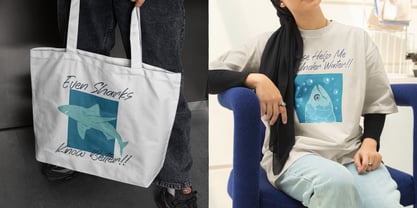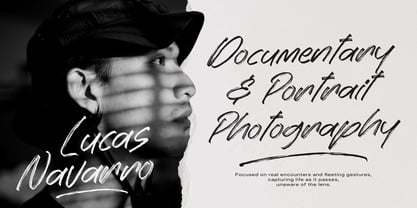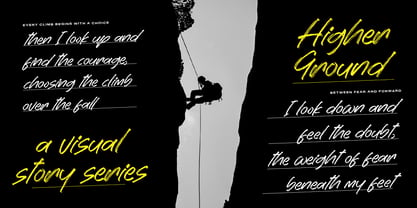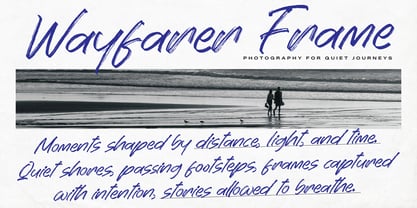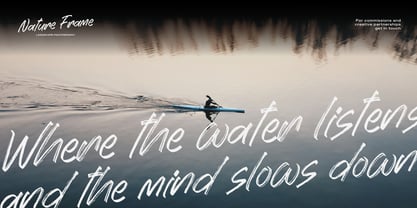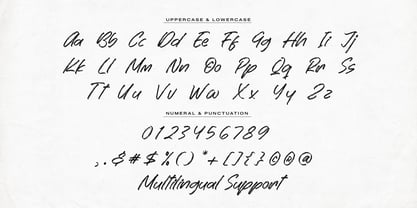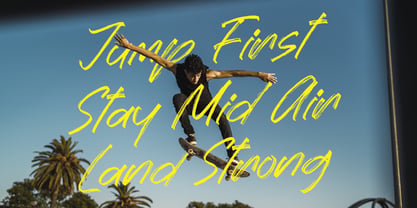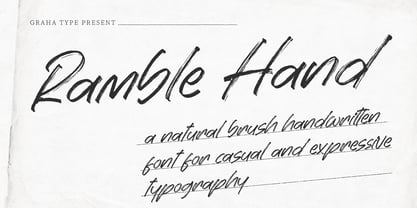
Ramble Hand
A família de fontes Ramble Hand foi desenhada por Toni Nugraha e publicada pela Graha Type. Ramble Hand contém 1 estilos. Saiba mais sobre esta família
Ramble Hand is a natural brush handwritten font with rough strokes and expressive character, created to deliver a casual, bold, and authentic handwritten look. Designed for projects that need strong personality and raw visual impact. This font is ideal for posters, quotes, branding, logos, apparel, packaging, social media graphics, editorial layouts, and creative projects that require an organic and expressive style.
Designers: Toni Nugraha